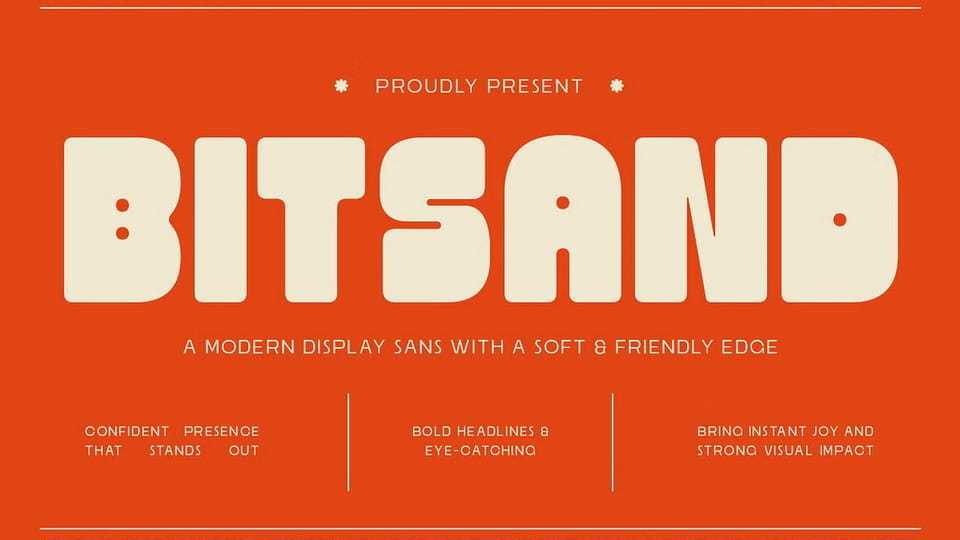
Download Bitsand font, a bold display sans-serif typeface designed to bring warmth, energy, and personality into your designs. With its rounded shapes and soft edges, it creates a friendly and approachable tone while still delivering strong visual impact.